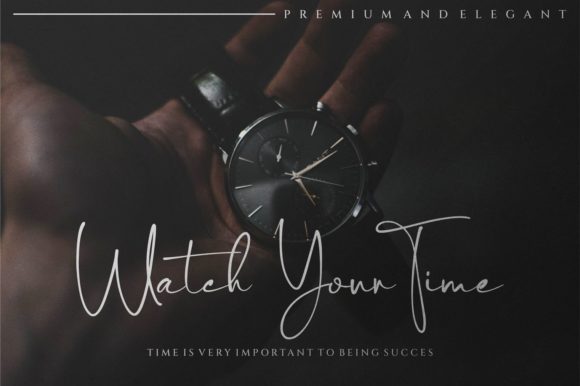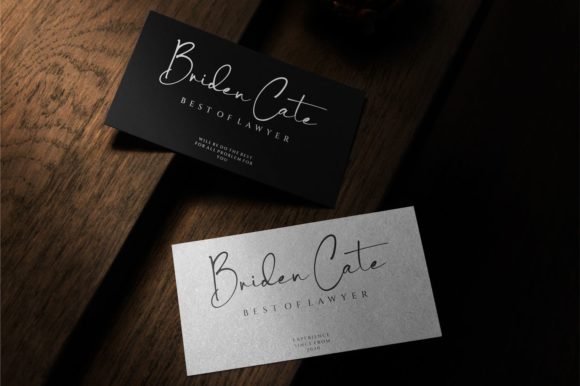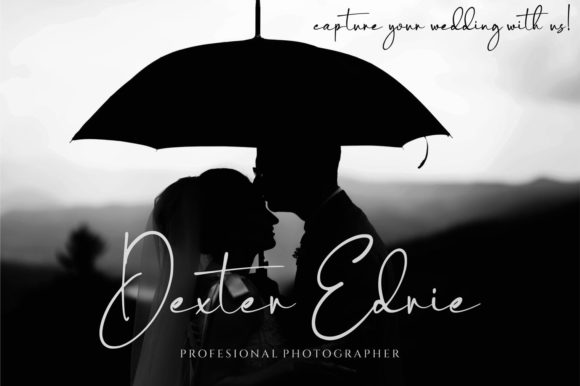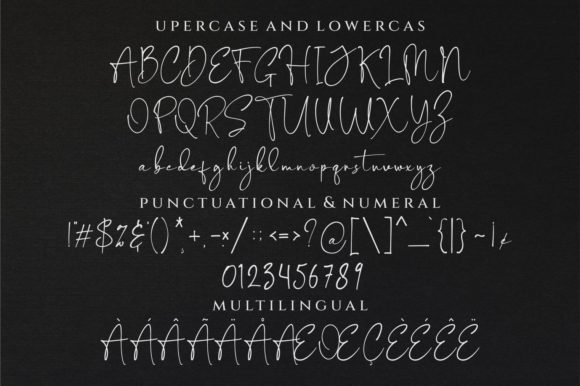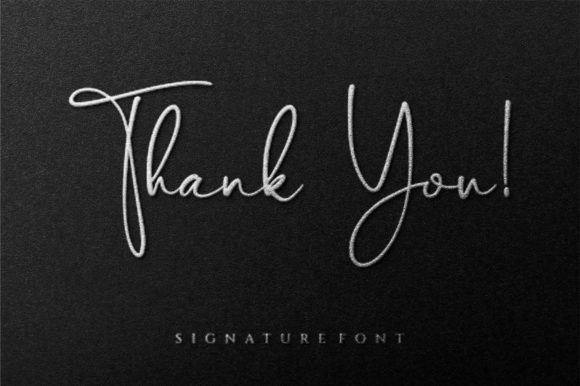
Armstrong Font
About Armstrong Font
Armstrong is a beautiful light handwritten font with a unique feel and a stunning impact. It will add a luxury spark to any design project that you wish to create!